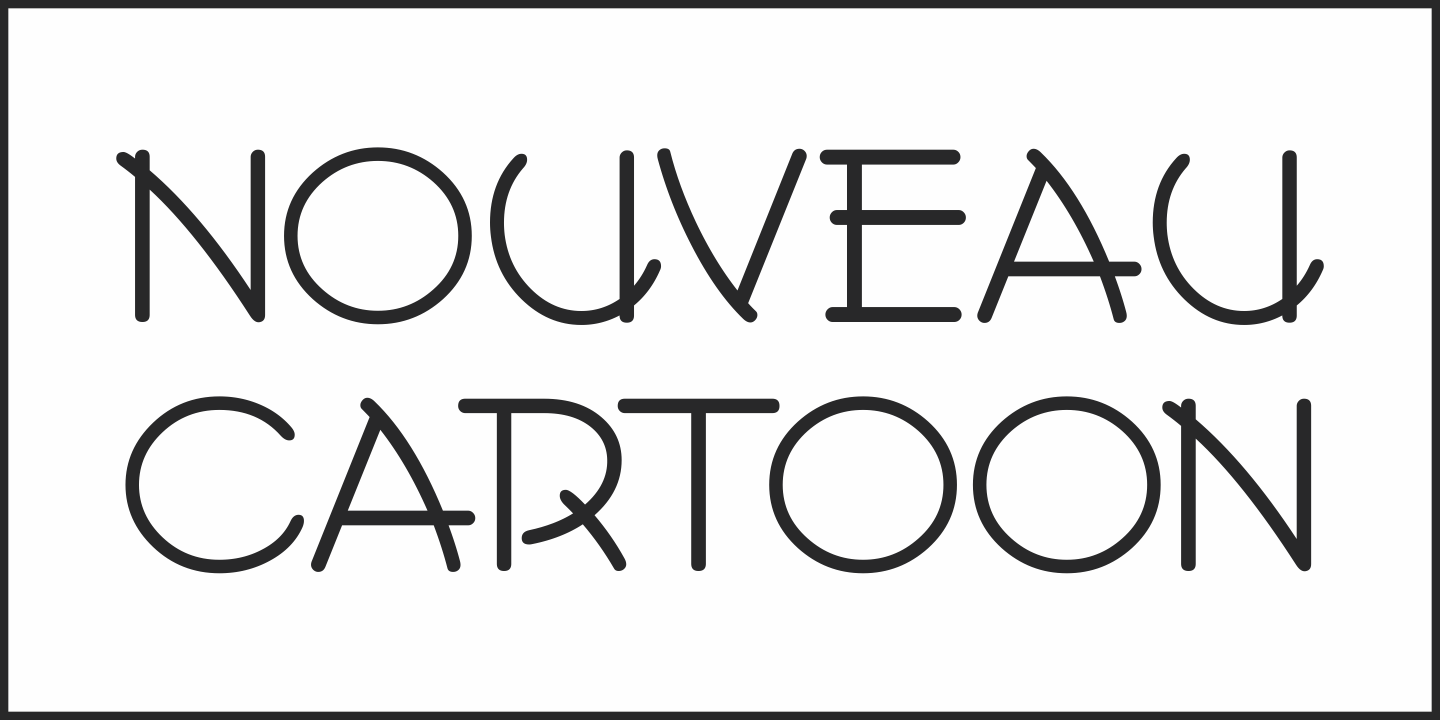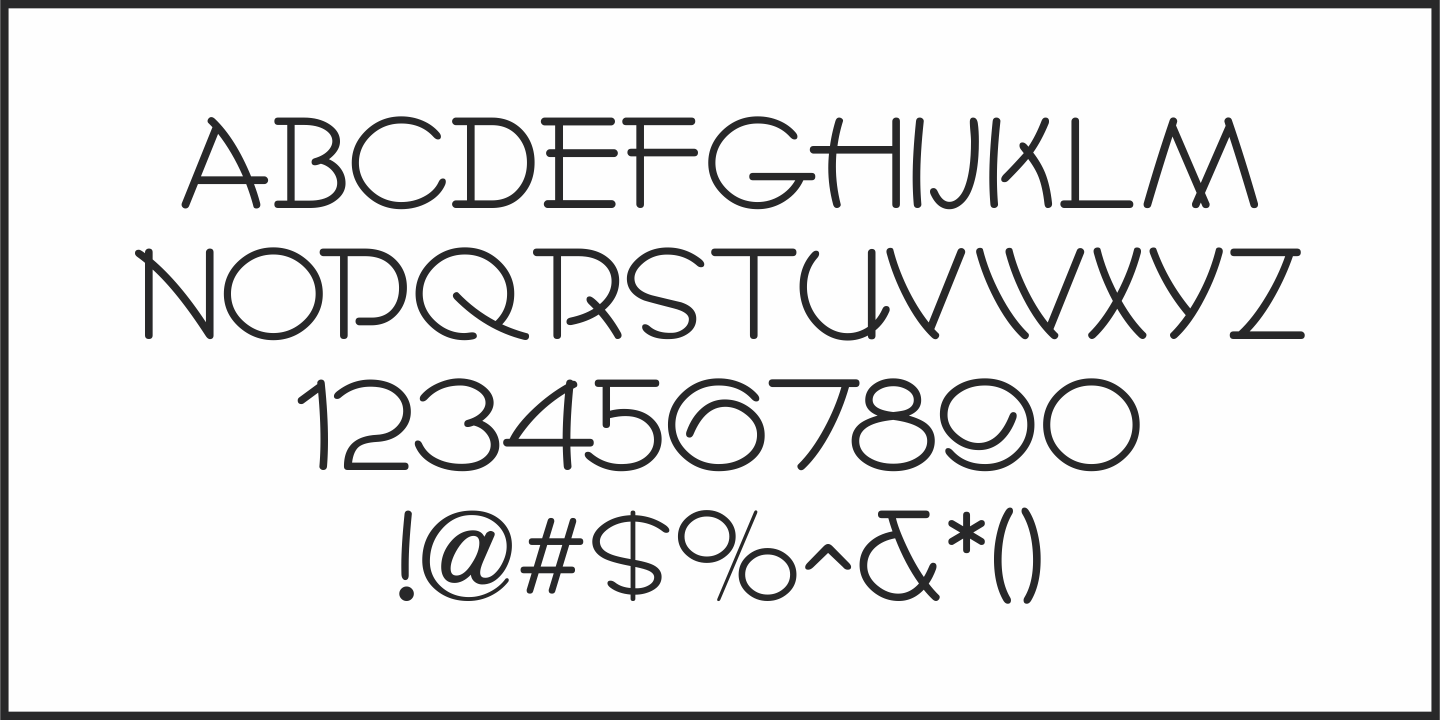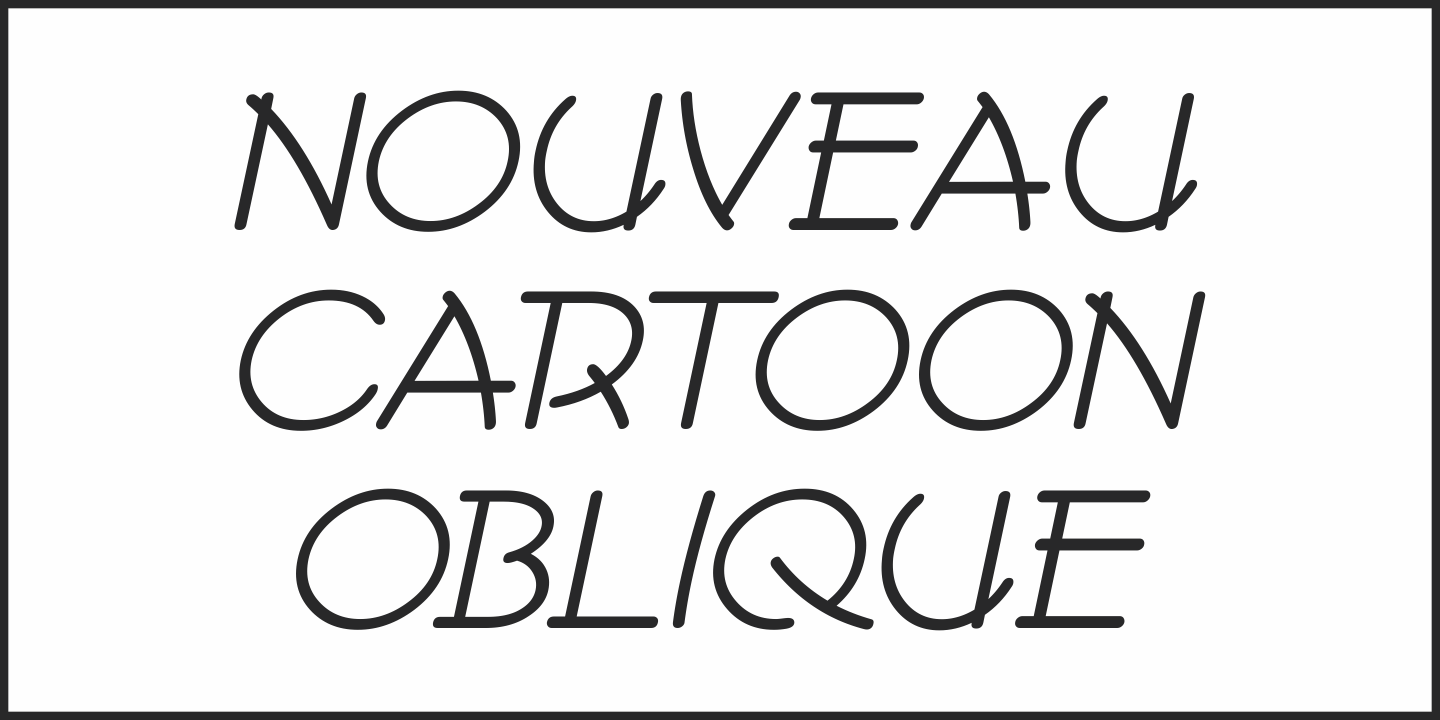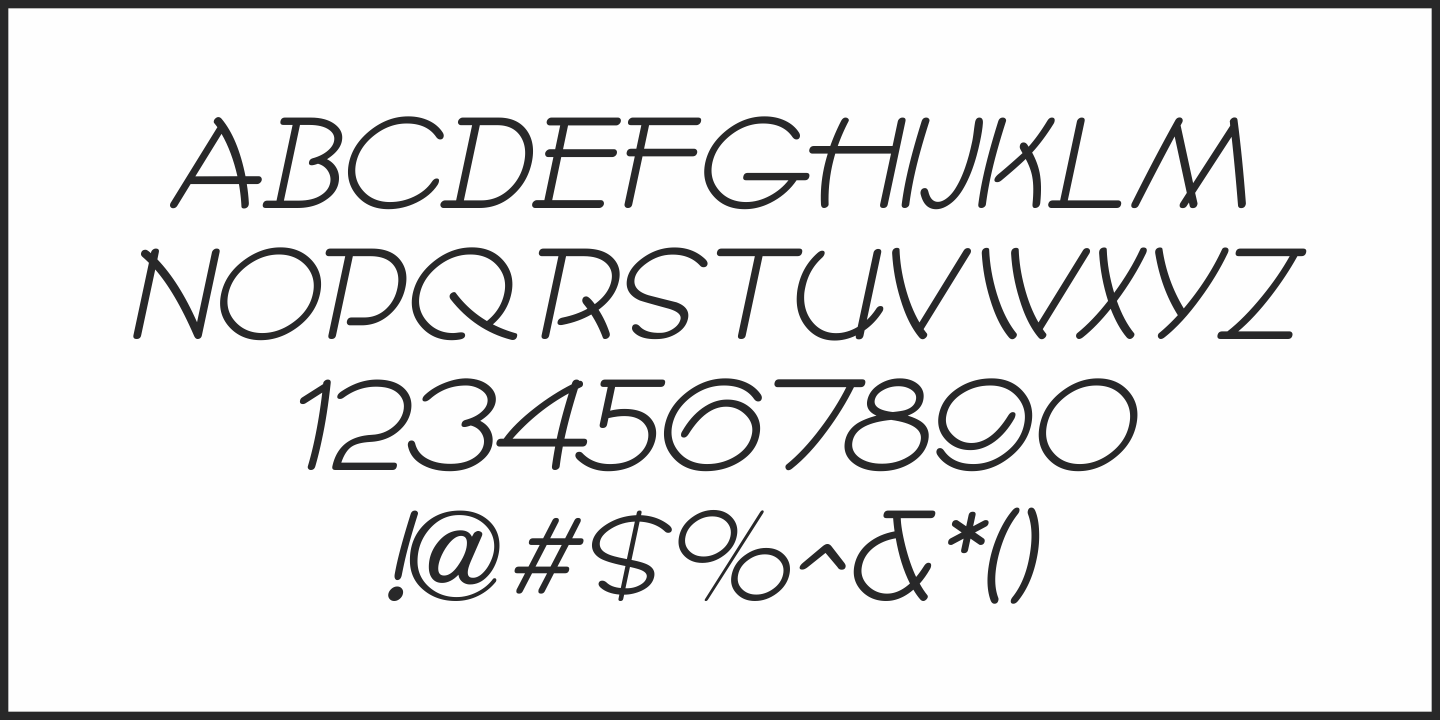
Nouveau Cartoon
Samuel Welo’s “Studio Handbook – Letter and Design for Artists and Advertisers” was a go-to source of inspiration for generations of layout artists, graphic designers and sign painters.
An interesting example of free-form pen lettering was found amongst the pages of one edition and it has now been recreated as a digital typeface called Nouveau Cartoon JNL; available in both regular and oblique versions.
Nouveau Cartoon JNL Regular by Jeff Levine Fonts